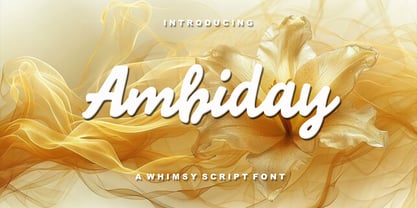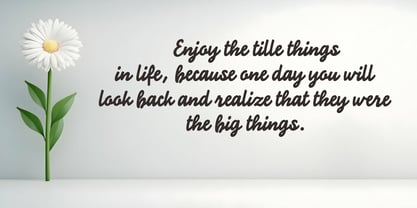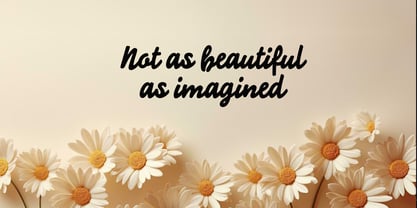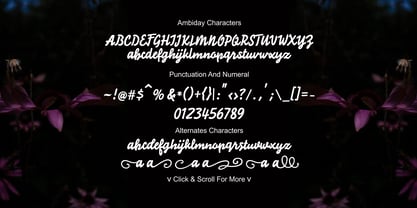
Ambiday
by Scoothtype
The Ambiday Font Family was designed by Muammar and published by Scoothtype. Ambiday contains 2 styles and family package options.
Introducing Ambiday, carefully crafted and balanced script typography with personality. You can be sure that Ambiday is equipped with the most advanced typographic Open Type features such as alternative character sets, etc. The Ambiday font style is applicable to all types of graphic designs on web, print, motion graphics, etc. and is suitable for T-shirts and other items such as posters and logos. Flowing characters are ideal for creating engaging messages. Mix and match Ambiday Font with a blends timeless charm with bold, handcrafted elegance. With its sweeping curves, retro-inspired letterforms, and nostalgic character, this font brings a touch of old-school sophistication to your designs.
Designers: Muammar
Publisher: Scoothtype
Foundry: Scoothtype